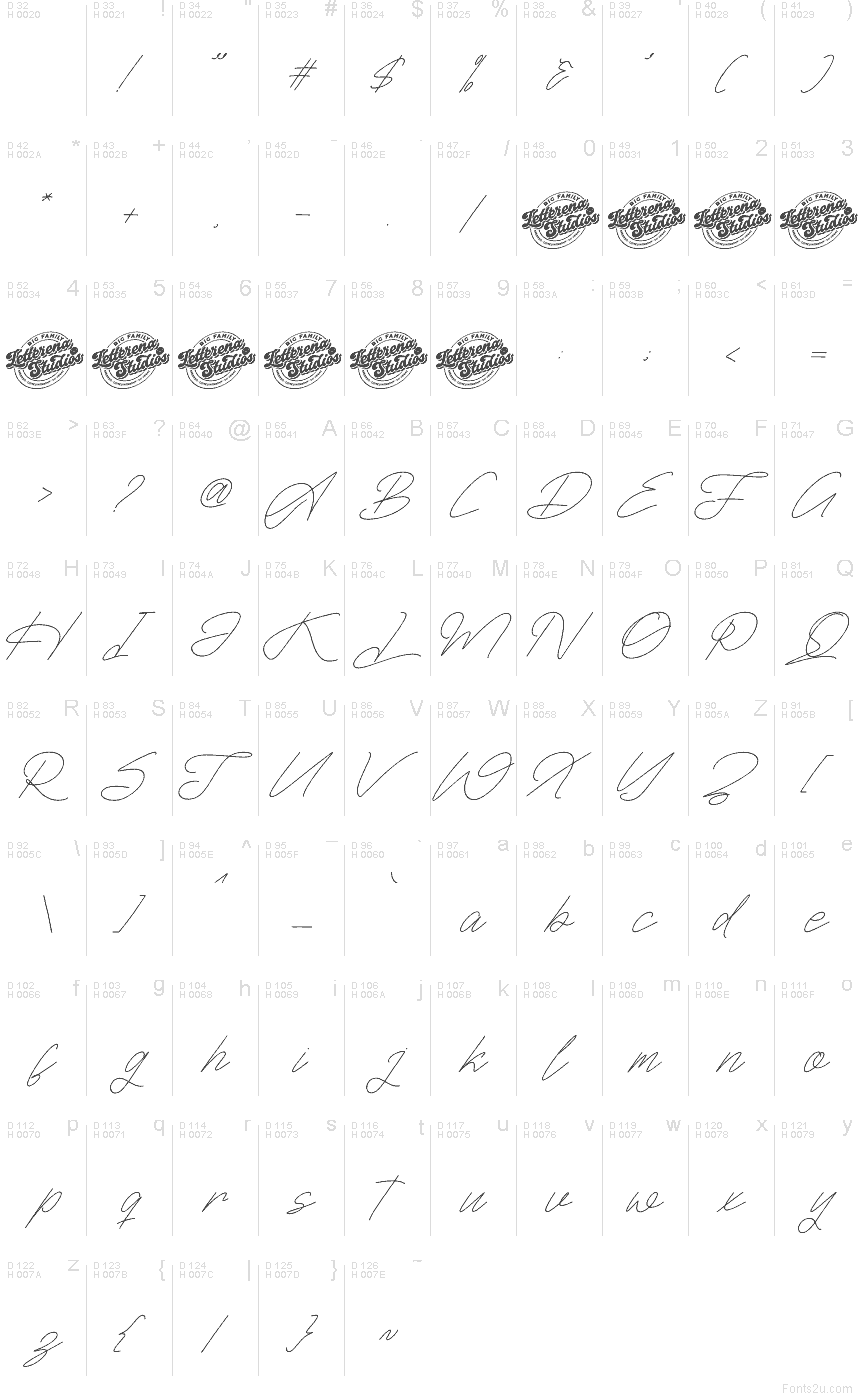
Rimgatho DEMO VERSION Italic
Rimgatho Italic font by Letterena Studios is a free handwritten font that gives you that elusive blend of airy elegance and real-world legibility. Its ultra-fine strokes, gentle slant, and long, sweeping connections feel like ink from a luxury pen gliding over smooth paper, yet the letters stay open and readable even at smaller sizes. As part of the Rimgatho family, it carries a consistent, polished rhythm that instantly softens otherwise minimal layouts.
Using Rimgatho Italic, you can add a sophisticated signature touch to wedding invitations, perfume or beauty branding, boutique logos, upscale packaging, social media quotes, and personal stationery. This free font shines when you give it room to breathe—try it large for names or headlines, paired with a clean sans serif for supporting text to keep everything refined and balanced.